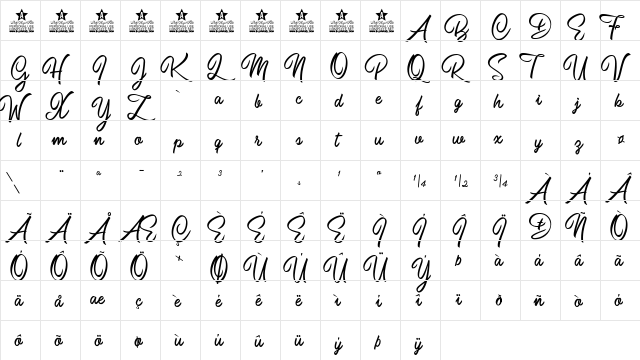
Burning Heart Personal Use Regular Font Preview
Burning Heart Personal Use Regular
Burning Heart Personal Use Regular Font Details
| Foundry | Billy Argel |
| Designer | Billy Argel |
Design Context for Burning Heart Personal Use Typeface
Burning Heart Personal Use is a composed and adaptable typeface that performs quietly and consistently across a wide range of design contexts.